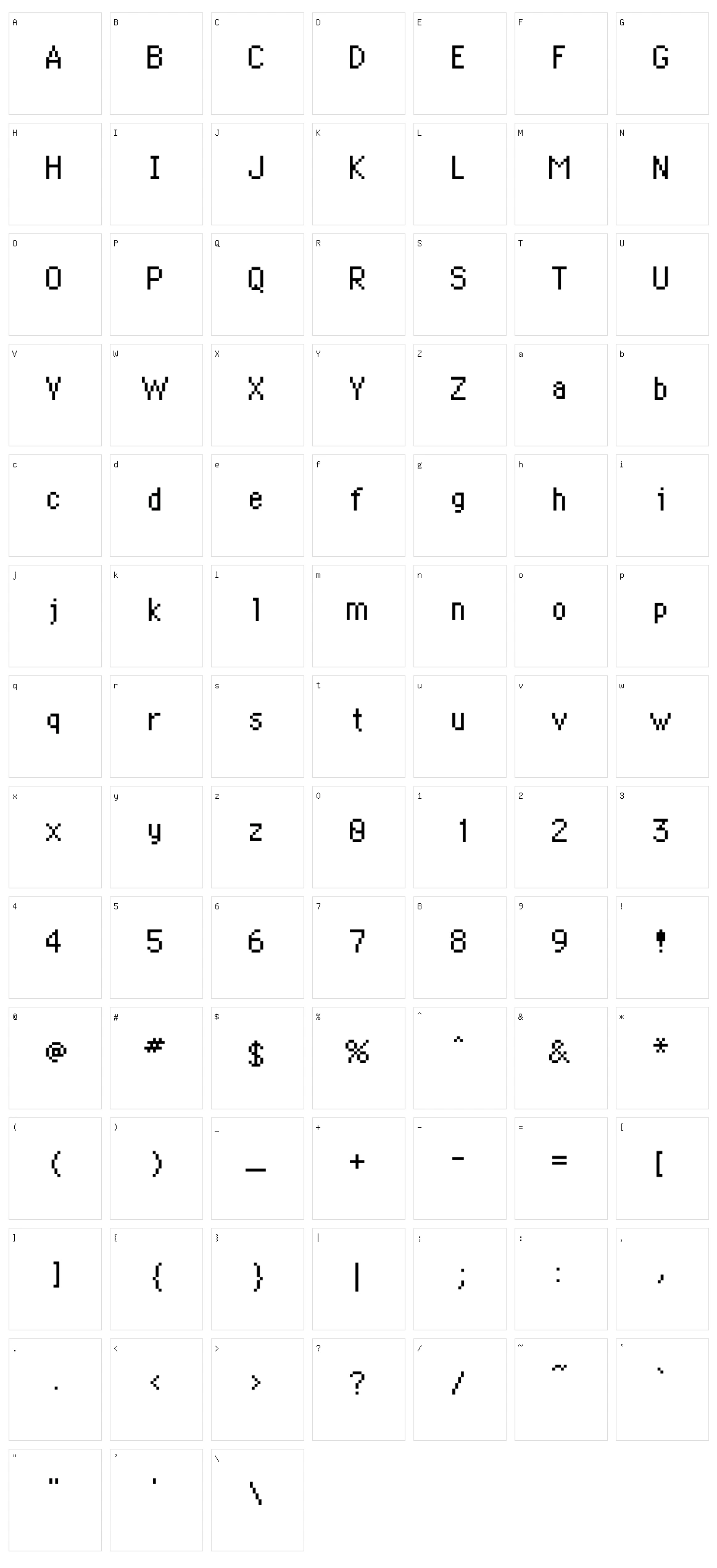
Wonder Mail
-David Fens, the author of the most well known/circulated Pokémon Mystery Dungeon font that motivated me to want to make this one to begin with.
-Including things such as mirrors (for certain missing slashes or brackets mostly), icon recreations, compatibility glyphs, and extra glyphs with different spacing for varying purposes, this font in total has 1,064 glyphs. There are no glyphs in this font that are completely original, everything is directly from, or created from something in Explorers or Rescue Team.
-What is included: Basic Latin and numbers, punctuation, accented letters, fullwidth Latin and numbers, halfwidth Latin and numbers, Hiragana, Katakana, Japanese punctuation, limited Greek letters, Unowns, the HUD font (Numbers, Latin, limited punctuation, limited Kanji, Hiragana, Katakana), damage numbers, and as a bonus assorted menu elements, recreated icons, and recreated menu borders. Most of the extra stuff, or things that didn't have a good place ended up in the Private Use Area.
-What is NOT included: The entire Korean alphabet and any additional symbols in that version. Someone (who seems to wish to remain anonymous) clued me in that a Korean version of Time/Darkness exists (but not Sky oddly enough), and as much as I desired to add the Korean alphabet as well, in the interest of actually releasing this font and keeping what's left of my sanity I had to opt to skip over it, as I do not possess sufficient knowledge of Hangul to properly add it.
-Using the standard text box as a baseline, every glyph should have completely accurate spacing to how they are in Explorers (including vertically if the metrics are working as they should), with only two exceptions. First, the fullwidth "4" when accurate to the game is not monospaced like the rest of the fullwidth numbers, so I changed that as non-monospaced numbers are dumb. Second, the two single guillemets in-game are misaligned vertically when compared to each other by one pixel, so I raised the left one to make them aligned to match the double guillemets.
-There are some "duplicate" glyphs for varying reasons, such as that the game itself reuses them (for example some of the Greek letters being identical to the Fullwidth letters), they have different spacing, or they are variations of other glyphs. Here's the most noteworthy cases:
Comma: The main comma is used as normal, and the other for the decimal in money displays (U+FE50). Rescue Team does not do this, has no decimal for money displays, and only uses the normal one.
Colon: The main colon is used to designate a character speaking, and the other for general menu usage (U+FE55). Rescue Team only uses the menu colon.
Poké Coin: The International version (U+E015) has three more pixels worth of spacing than the Japanese version (U+E295)
Female/Male Symbol: The International versions are different to the Japanese versions (U+E292/U+E293).
"1": The "1" used in Rescue Team (U+E294) is shifted to the left by one pixel compared to in Explorers. If you want the "0" without the slash that's in Rescue Team, it looks exactly the same as the capital "O".
-As there is no support for combining characters, I included the resulting missing glyphs elsewhere (inverted breve: U+E2A8, umlaut v: U+E2A9, acute v: U+E2AA).
-The border glyphs were mostly added for decoration purposes, they unfortunately don't do a great job at matching up with the in-game menus due to the nature of them. Regardless, it's quite confusing to figure out how they fit together. In short, the Light Triple Dash (U+2504) is meant to be used for the straight separator line in menus, the Light Box Drawings (U+250C/2510/2514/2518/251C/2524/252C/2534) are for portrait borders, the Heavy Box Drawings (U+250F/2513/2517/251B/2523/252B/2533/253B) are for regular menu borders, and the Heavy Vertical-Light Horizontal Box Drawings (U+2520/2528/2542) are for dividing and attaching another menu box vertically. It's kind of a mess, sorry!
-If something doesn't seem to be lining up correctly horizontally for what you're doing for whatever reason, you might be able to use the Hair Space (U+200A) to suit your needs.